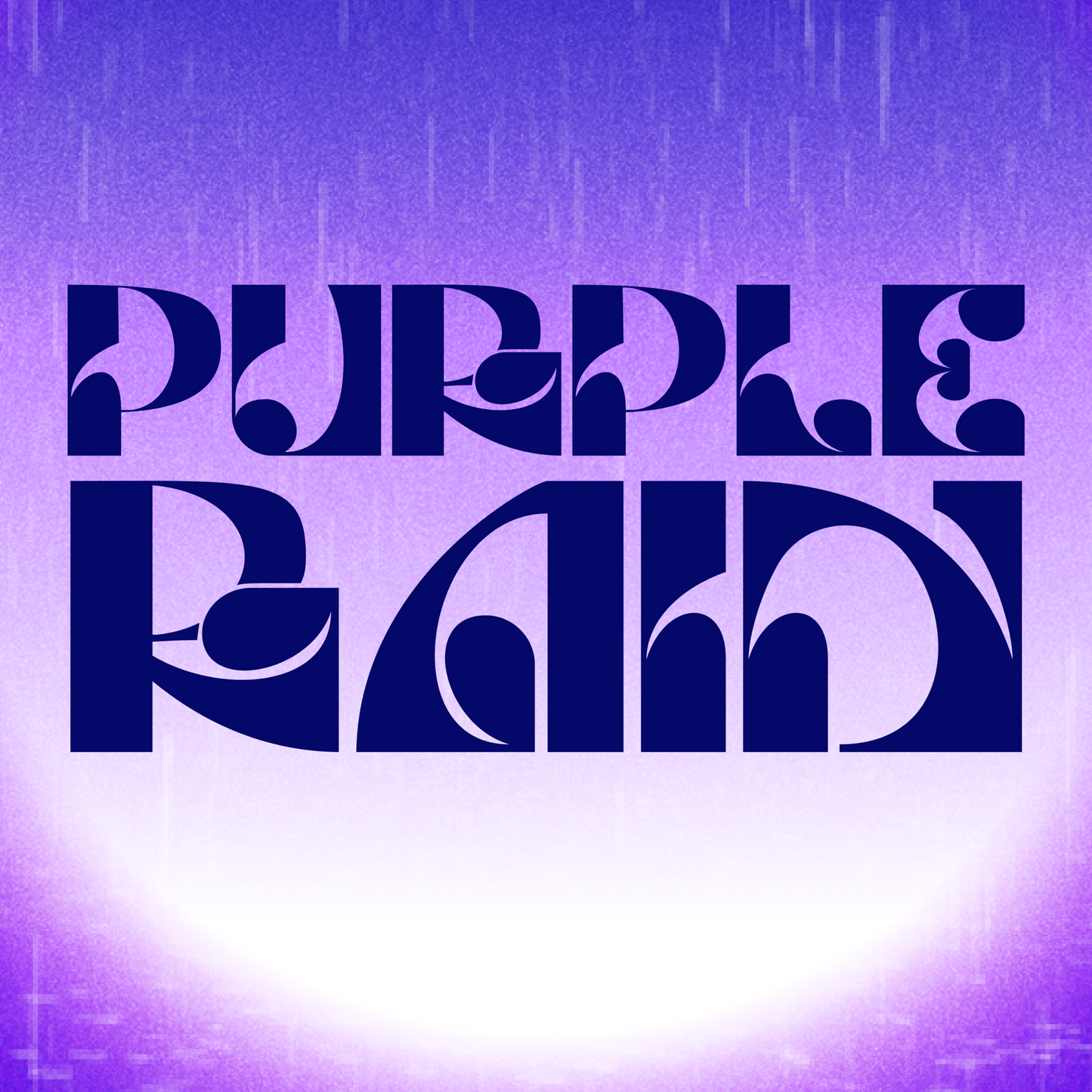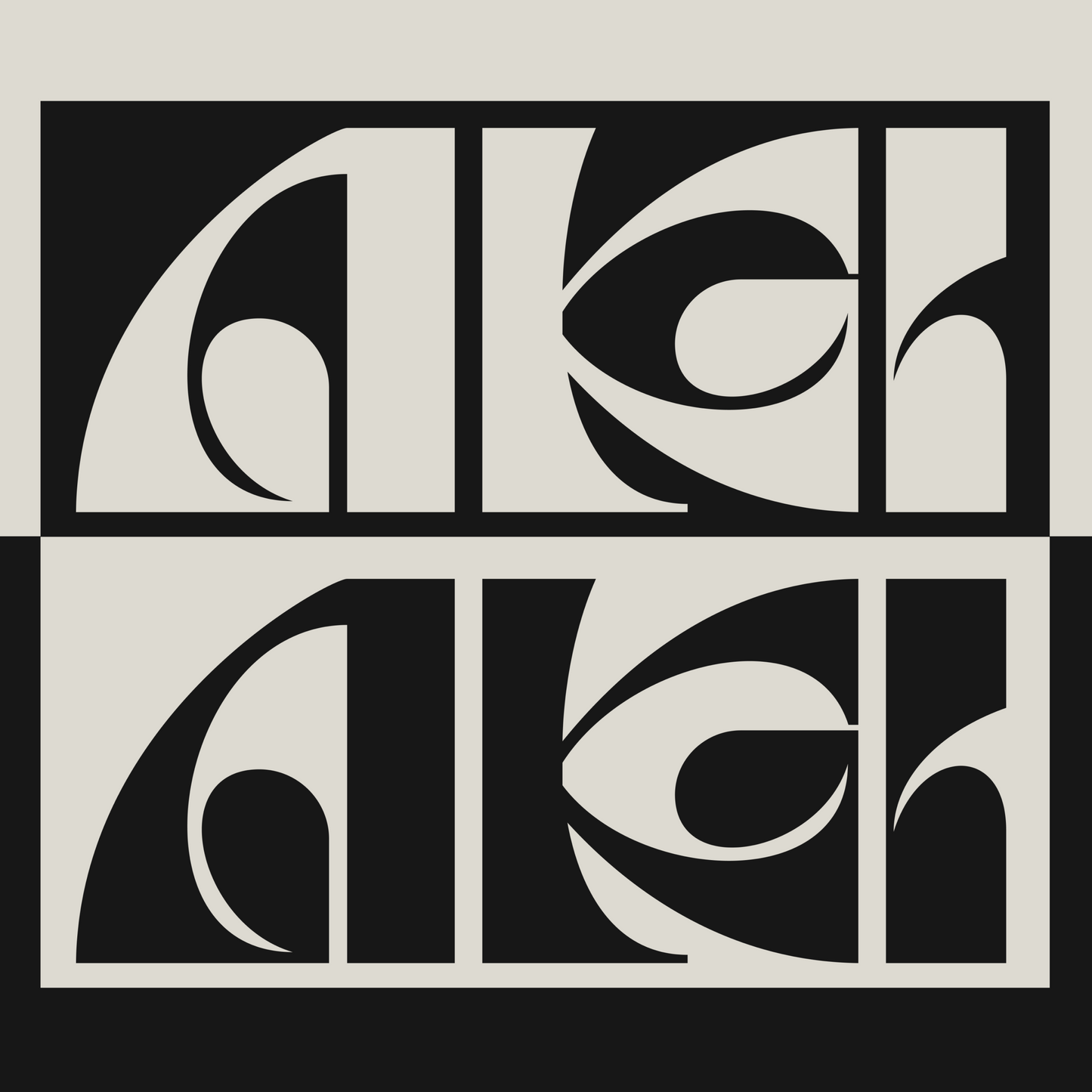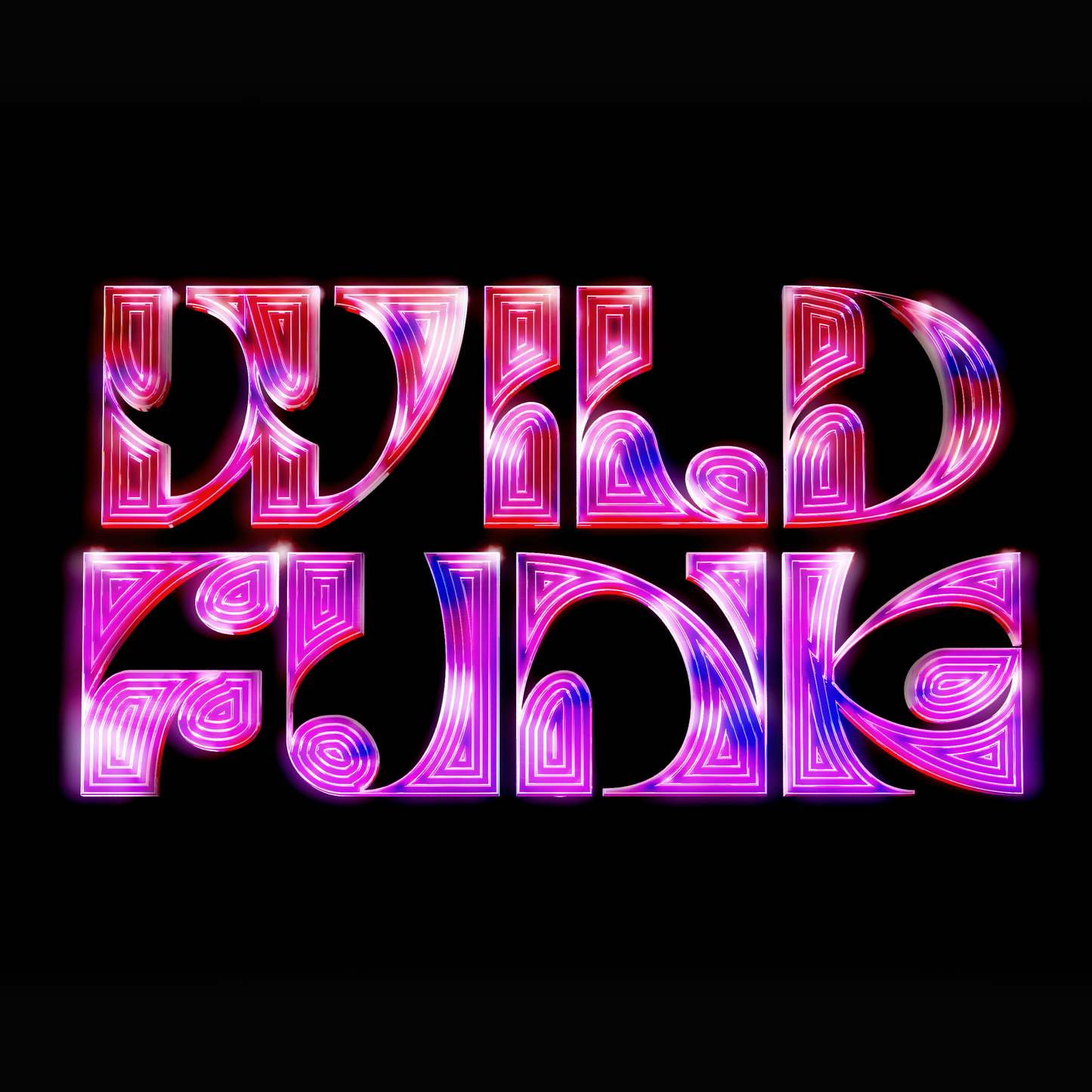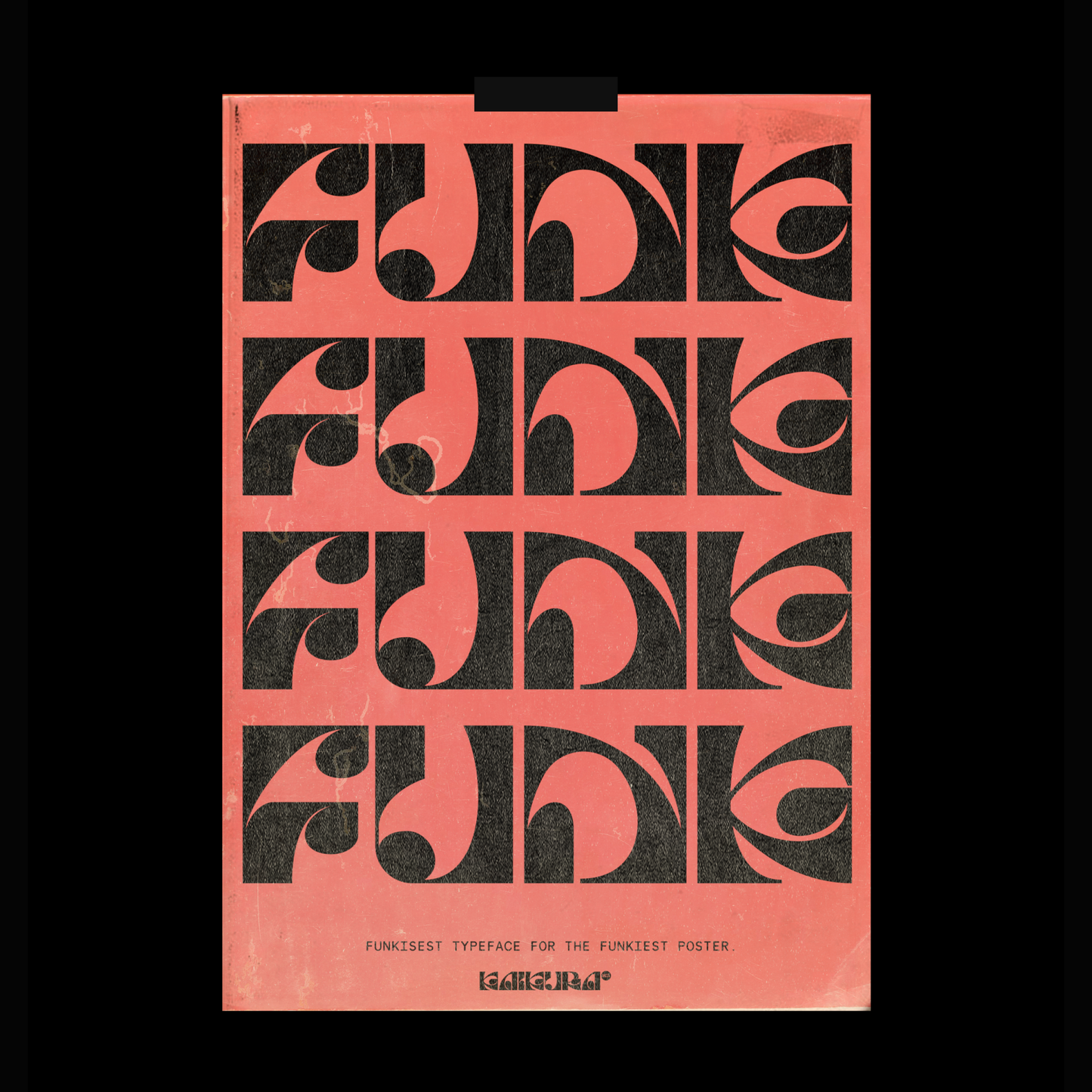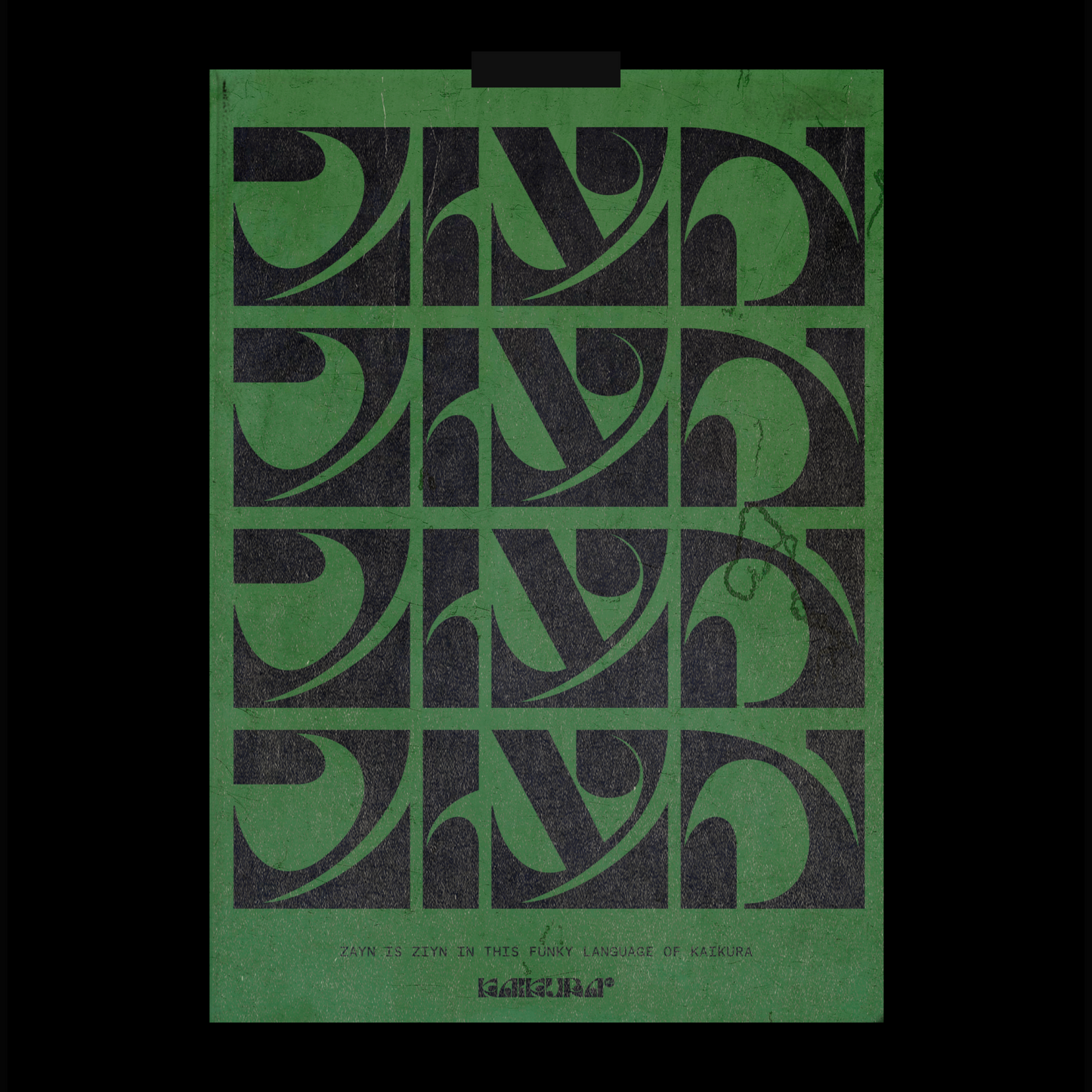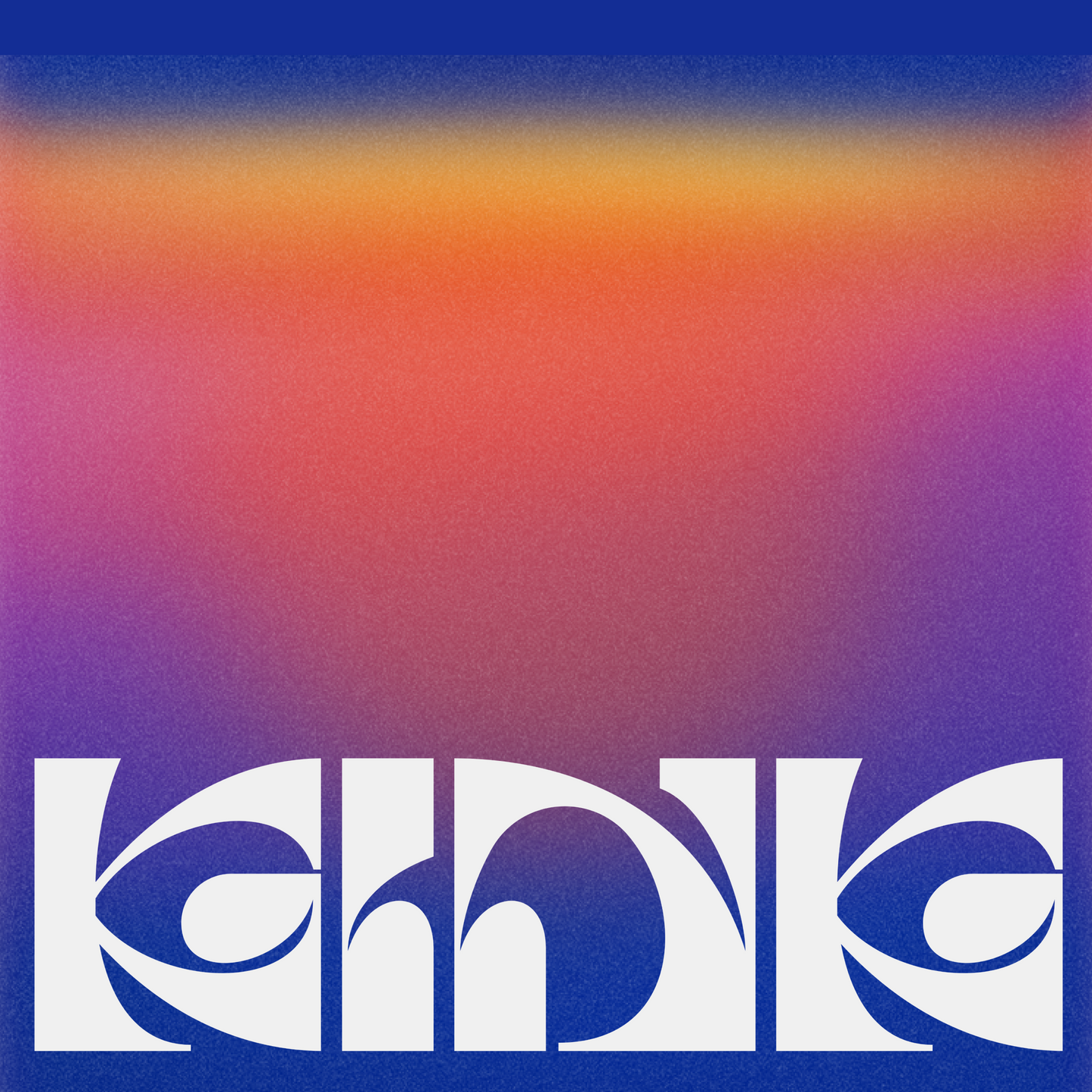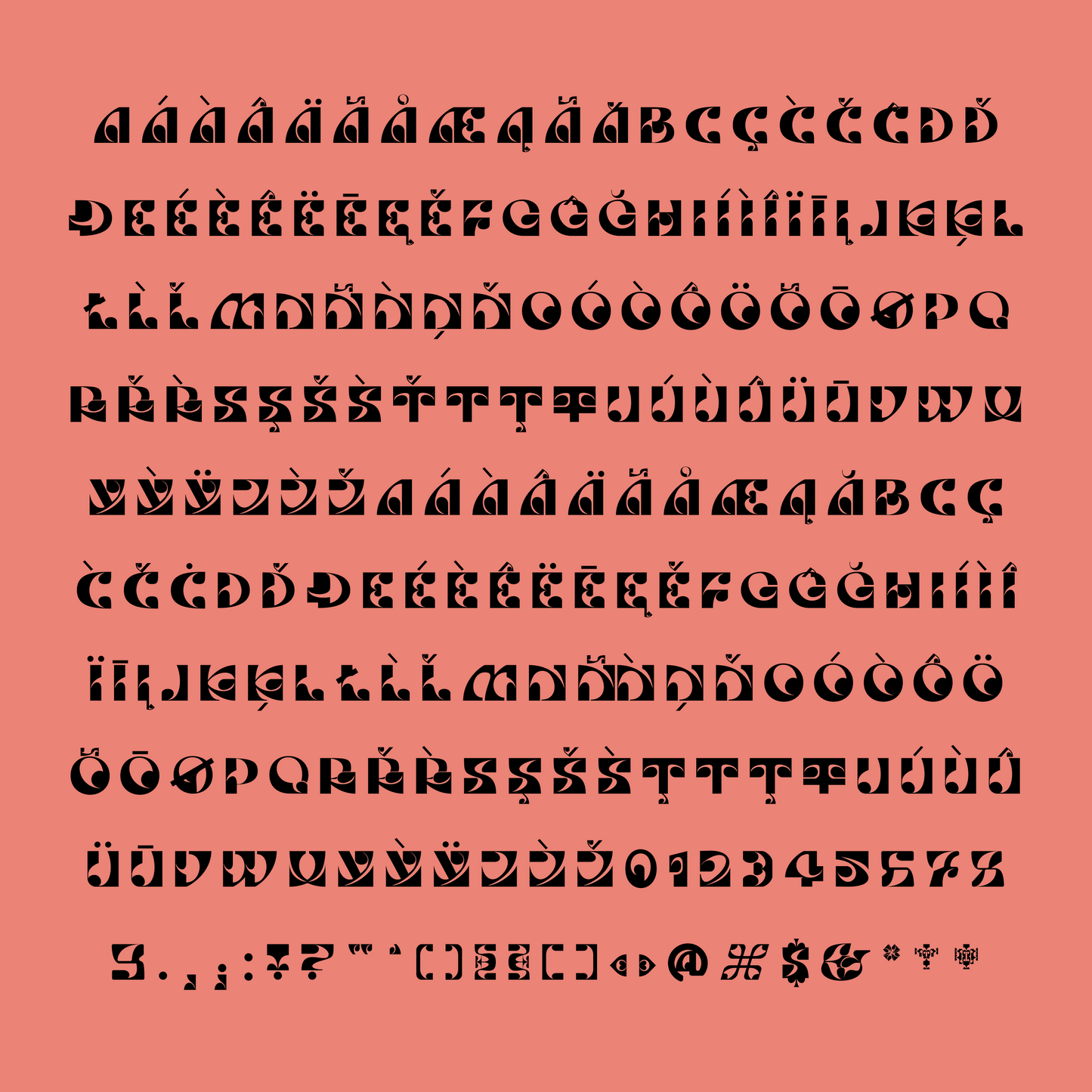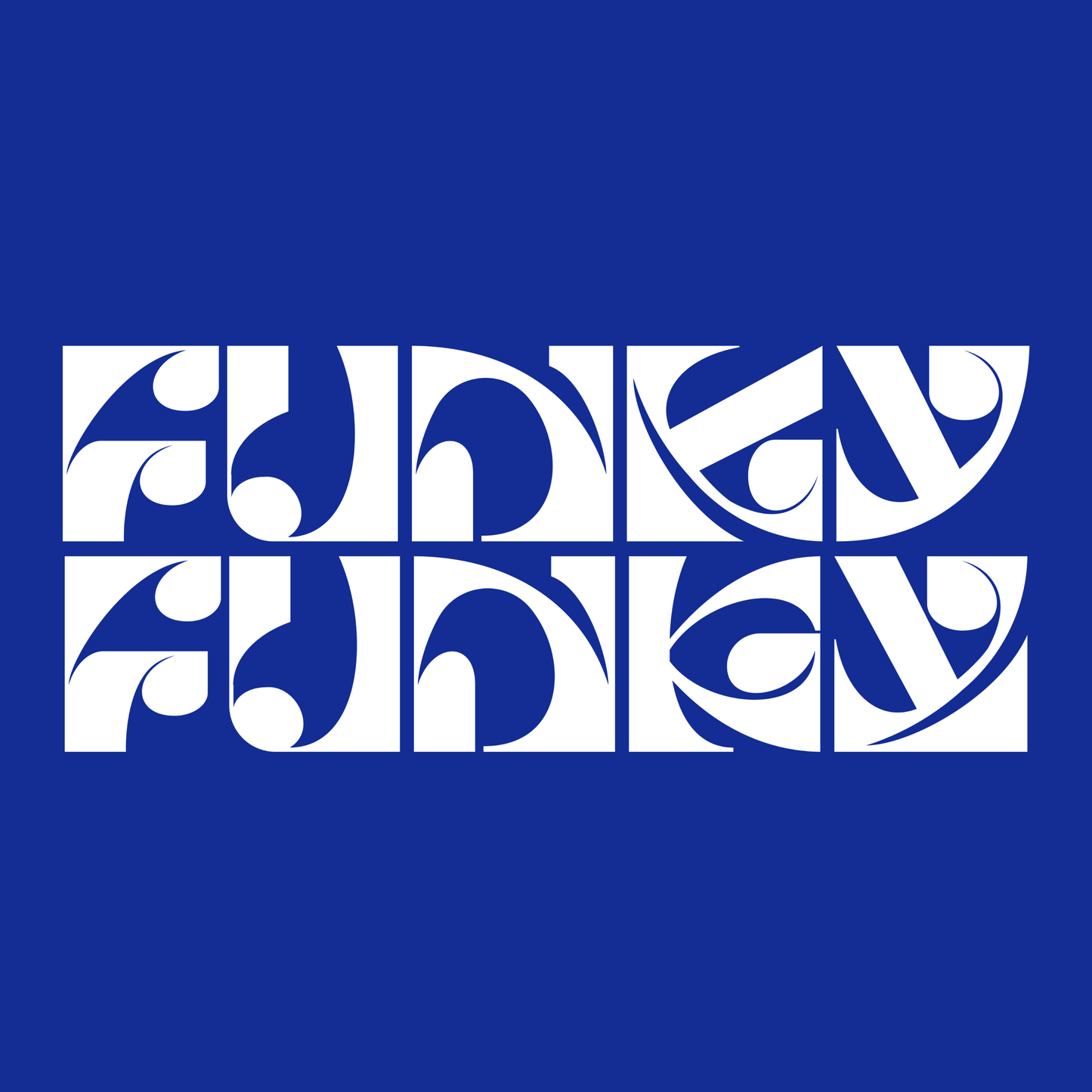
BM Kaikura
Murathan Biliktü
Kaikura is a homage to the 1970s musicians, capturing the soul and funky moods of the era. It is a trippy, experimental follow-up to the "Erkin" typeface.
—TOTAL GLYPHS SET: 424
—UPPERCASE ONLY
—VARIABLE FONT WITH ALTERNATES AND SUBSTITUTES
—OPENTYPE FEATURES: Access All Alternates (aalt)